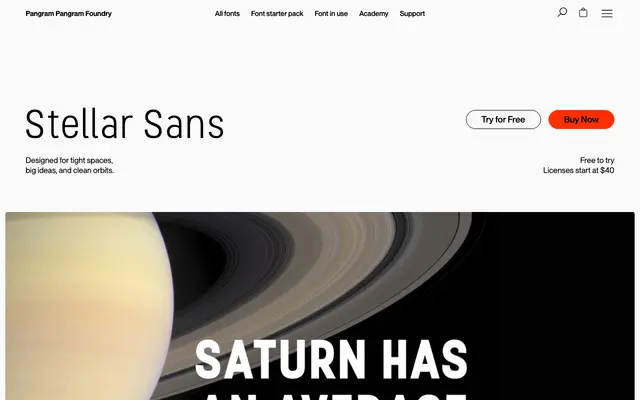
PP Stellar Sans
A slightly condensed grotesque sans by Mat Desjardins with a tall x-height, built for tight layouts and dense typographic systems.
A condensed sans serif drawn for legibility in tight measures, with a tall x-height that holds clarity at small sizes. Four weights from Light to Bold cover most hierarchy needs, and the narrow proportions make it useful for editorial spreads, mobile interfaces, packaging and poster blocks where every column counts. The brutalist edge keeps it from feeling generic when scaled up for display.
Pangram lists it under Brutalist, Grotesk and Sans Serif. A slightly condensed sans with a tall x-height, designed for tight layouts and high-density settings.